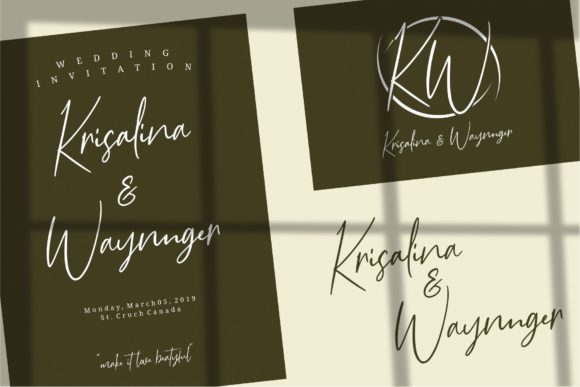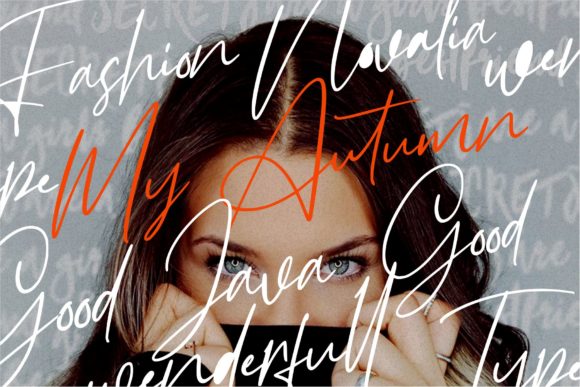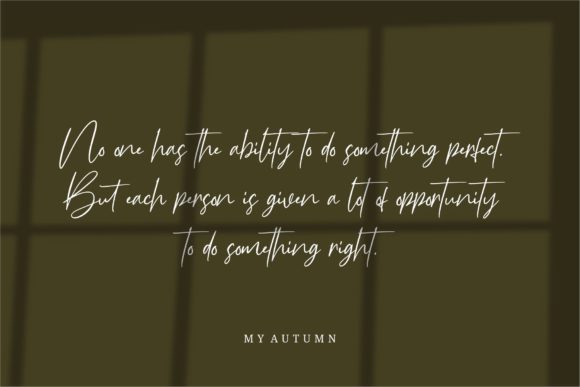
Introduction to My Autumn Font
As I sat at my desk, staring at a blank canvas, I knew exactly what my design needed – a dash of whimsy and a pinch of personality. And then, it hit me – the perfect font to bring my creative project to life. Enter My Autumn Font, a beautiful and light handwritten font with a smart feel that adds a touch of sophistication to any design.
With its transparent background and high-quality design, My Autumn Font is a valuable resource for designers looking to elevate their work. Whether you’re working on a branding project, a social media campaign, or a creative endeavor, this font is sure to inspire. And the best part? It’s available for free download, making it an accessible design resource for designers of all levels.
So, what sets My Autumn Font apart from the rest? Its unique charm and character make it a standout choice for designers looking to add a personal touch to their work. In this article, we’ll delve into the world of My Autumn Font and explore why it’s a must-have for any design project.
Key Features of My Autumn Font
- High-quality design resource with a unique autumnal theme, perfect for creative projects.
- Resolution: 300 DPI, ensuring crisp and clear text display on any screen or print material.
- Transparent background option available for designers who want to easily integrate the font into their designs.
- Size: 12,000+ glyphs, providing a comprehensive set of characters for creative expression.
- Designed to be versatile, suitable for use in a range of creative projects, from logos to brochures and more.
Honest Review: My Autumn Font
I recently had the chance to work with My Autumn Font on a creative project, and I must say, it’s been a pleasant experience. This font has all the qualities of a high-quality design resource.
What works well: ✨ The transparent background of this font is a game-changer, making it super easy to integrate into any design project. The font itself is beautifully crafted, with a perfect blend of elegance and sophistication. The free download option is also a huge plus, as it allows designers like me to experiment with the font without breaking the bank.
Here are some of the key features that stood out to me:
- High-resolution design, perfect for print or digital projects
- Unique and stylish font style, ideal for creative projects
- Easy to use, even for designers with limited experience
⚠️ One limitation I noticed is that the font might not be suitable for all types of projects. The style is quite bold and ornate, so it’s best used for creative projects that require a touch of elegance.
Overall impression: I’m thoroughly impressed with My Autumn Font. It’s a valuable addition to any designer’s toolkit, and I’d highly recommend it to anyone looking for a high-quality, free design resource.
My Autumn Font is a high-quality design resource perfect for creative projects that require a unique and seasonal touch. This font is available for free download and features a transparent background, making it easy to integrate into various design platforms.
To get the most out of My Autumn Font, try pairing it with warm and rich colors, such as orange and brown, to create a cozy and inviting atmosphere. You can also experiment with different font sizes and styles to add depth and visual interest to your design.
My Autumn Font is perfect for a variety of creative projects, including:
- Social media posts and graphics
- Presentations and documents
- Invitations and event materials
- Branding and marketing materials